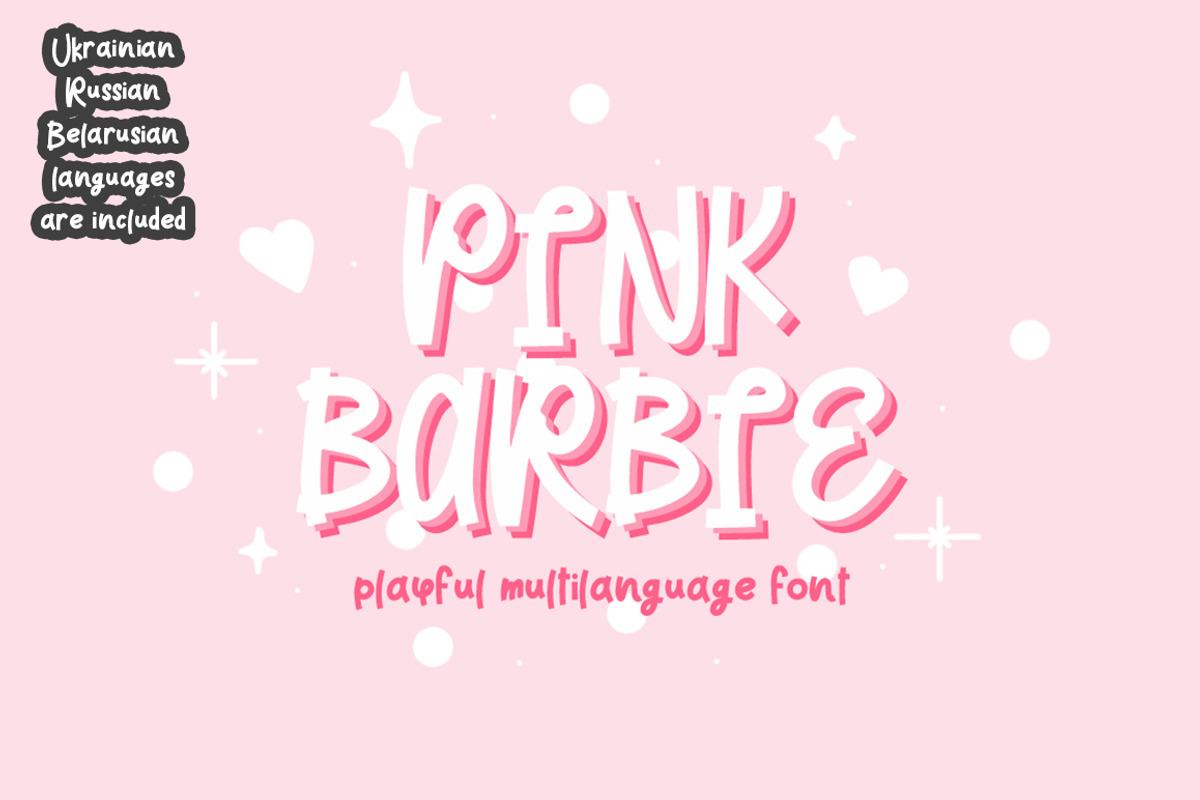
Pink Barbie Playful Font Free Download is a fun, bubbly, and ultra-girly typeface that brings charm and cuteness to any design. Inspired by iconic fashion doll aesthetics, Pink Barbie is perfect for party invitations, kids’ projects, fashion branding, birthday designs, toy packaging, and playful social media content.
With its soft curves, bold personality, and cheerful vibe, Pink Barbie Playful Font Free Download instantly grabs attention and adds a splash of fun to your typography. Whether you’re creating designs for a young audience or simply want a font that’s fabulous and full of flair, this typeface delivers sweet, standout style.